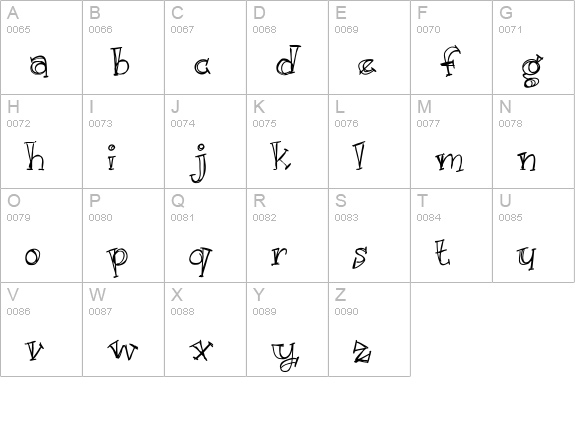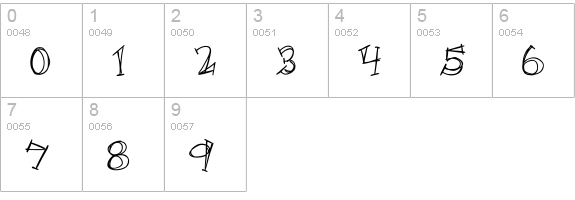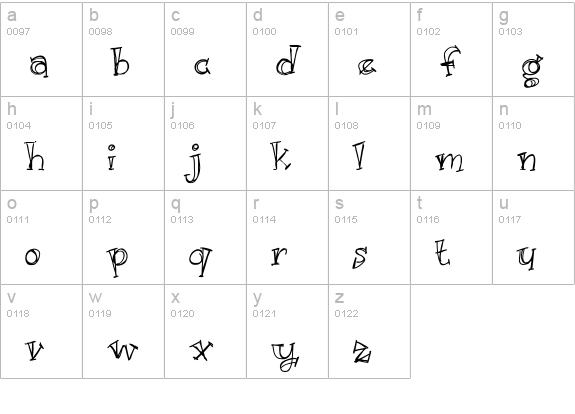
Just kidding. Font Details
Introducing Just kidding, a playful and whimsical font that will add a touch of humor to any design project. With its quirky letterforms and lighthearted vibe, this font is perfect for creating eye-catching headlines, invitations, posters, and more. Just kidding is a versatile typeface that can be used for both digital and print designs. Its unique character shapes and charming curves make it stand out from the crowd, ensuring that your message will be noticed and remembered. What sets Just kidding apart is not only its fun and friendly appearance but also the fact that it is available for free! That's right, you can freely download this font at FontsMarket.com, a leading online resource for high-quality fonts. Whether you're a professional designer or a casual enthusiast, Just kidding is a must-have addition to your font collection. With Just kidding, you have the freedom to express your creativity and bring joy to your designs. So go ahead, embrace the fun-loving spirit of this font and let your imagination run wild. Download Just kidding today and let the laughter begin!